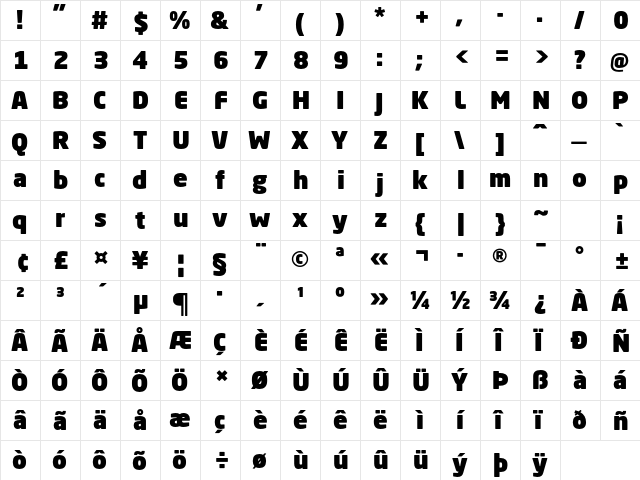
Neo Sans Std Ultra
Design Context for Neo Sans Std Typeface
Neo Sans Std takes a measured approach to typography — its balanced proportions and neutral character make it a reliable workhorse for both digital and print work.
Pro Tip: Use Neo Sans Std in both headline and body roles to test its range before committing to a single application.